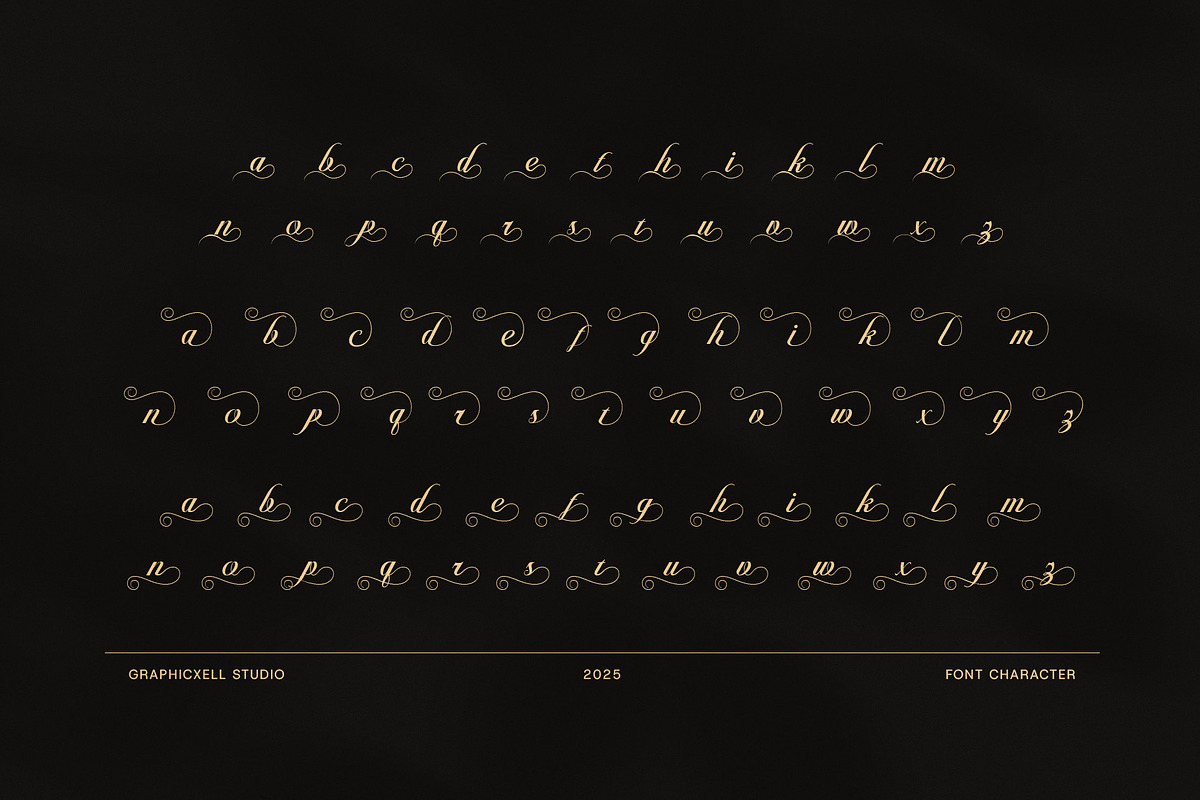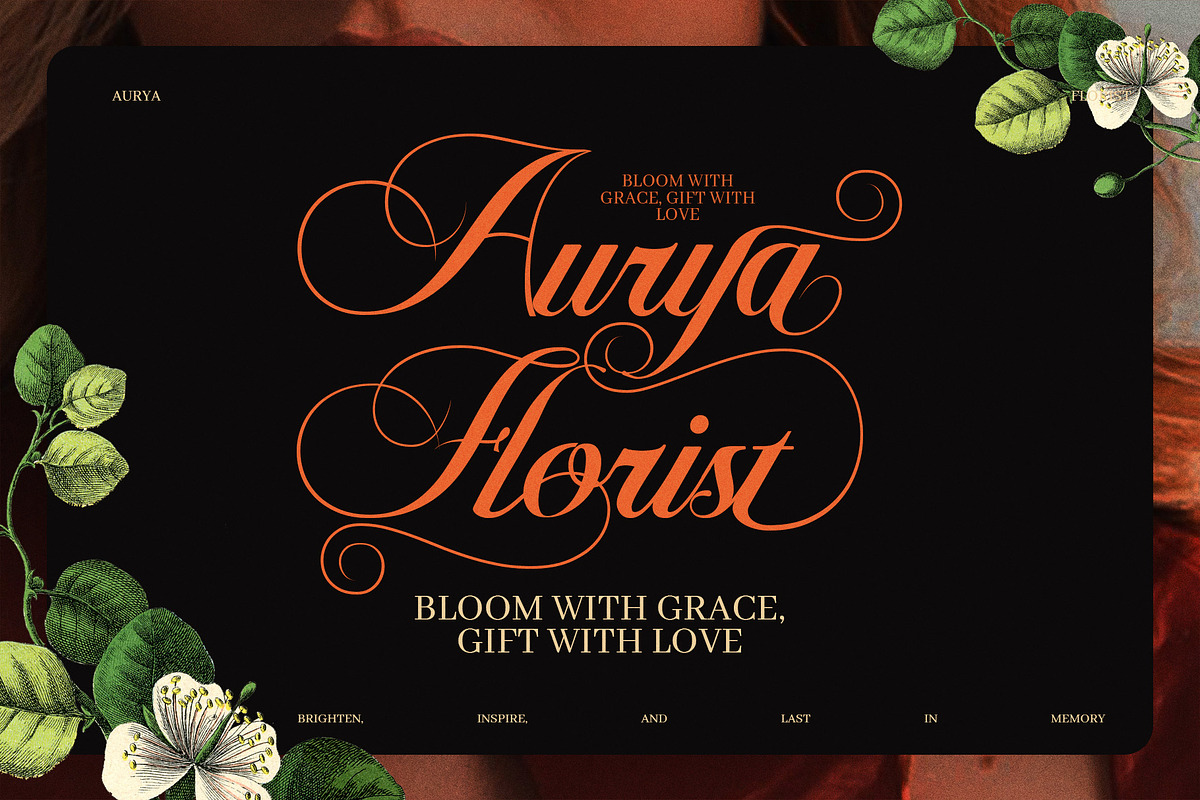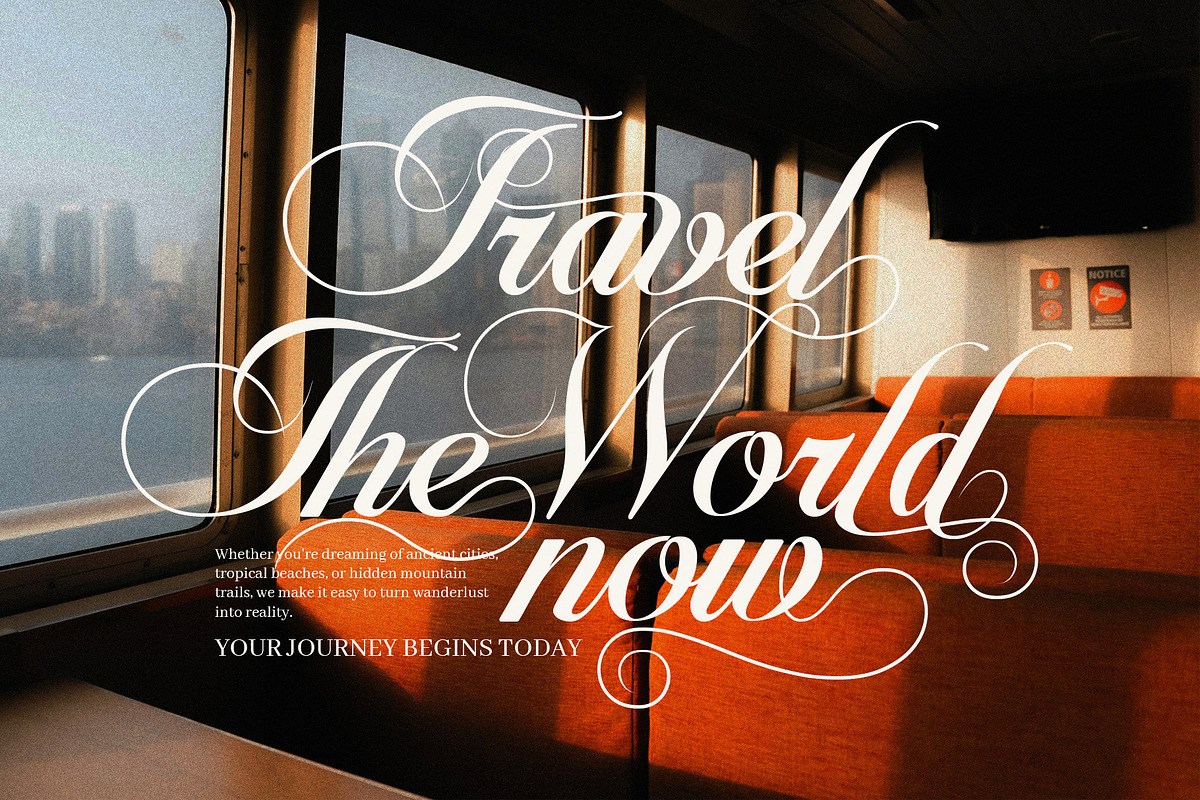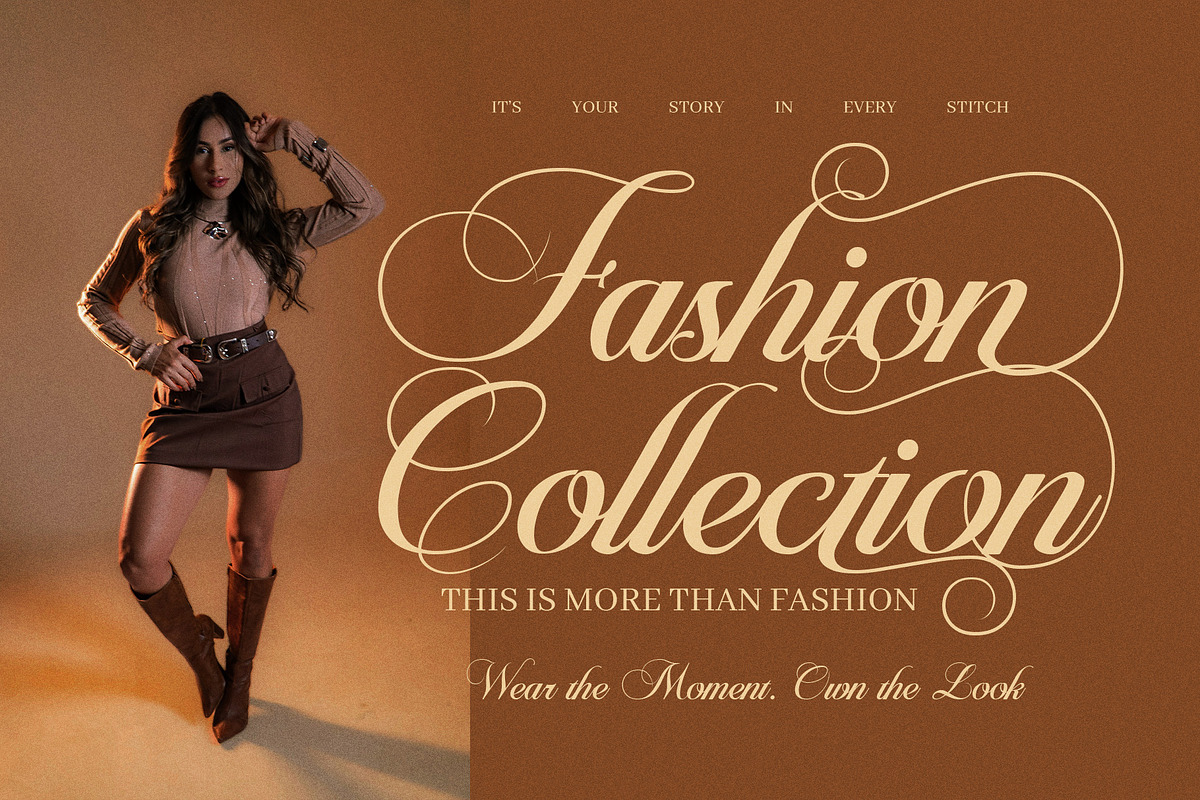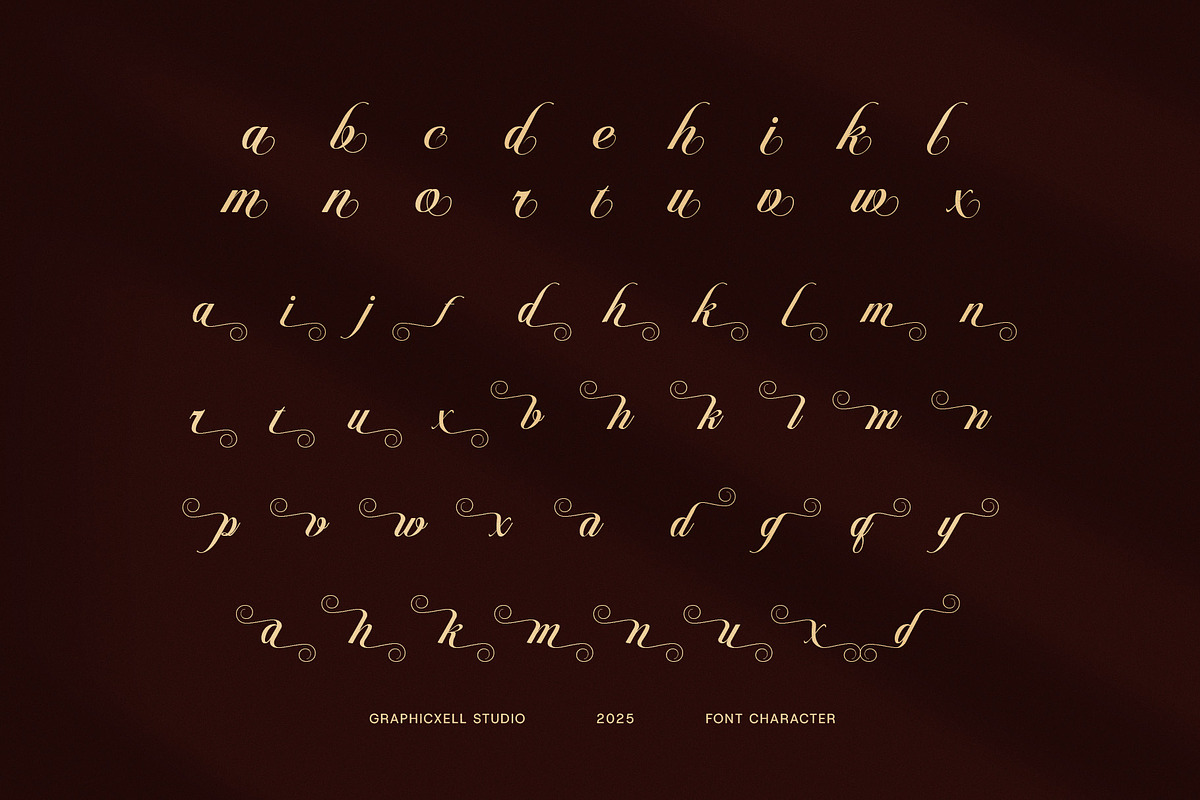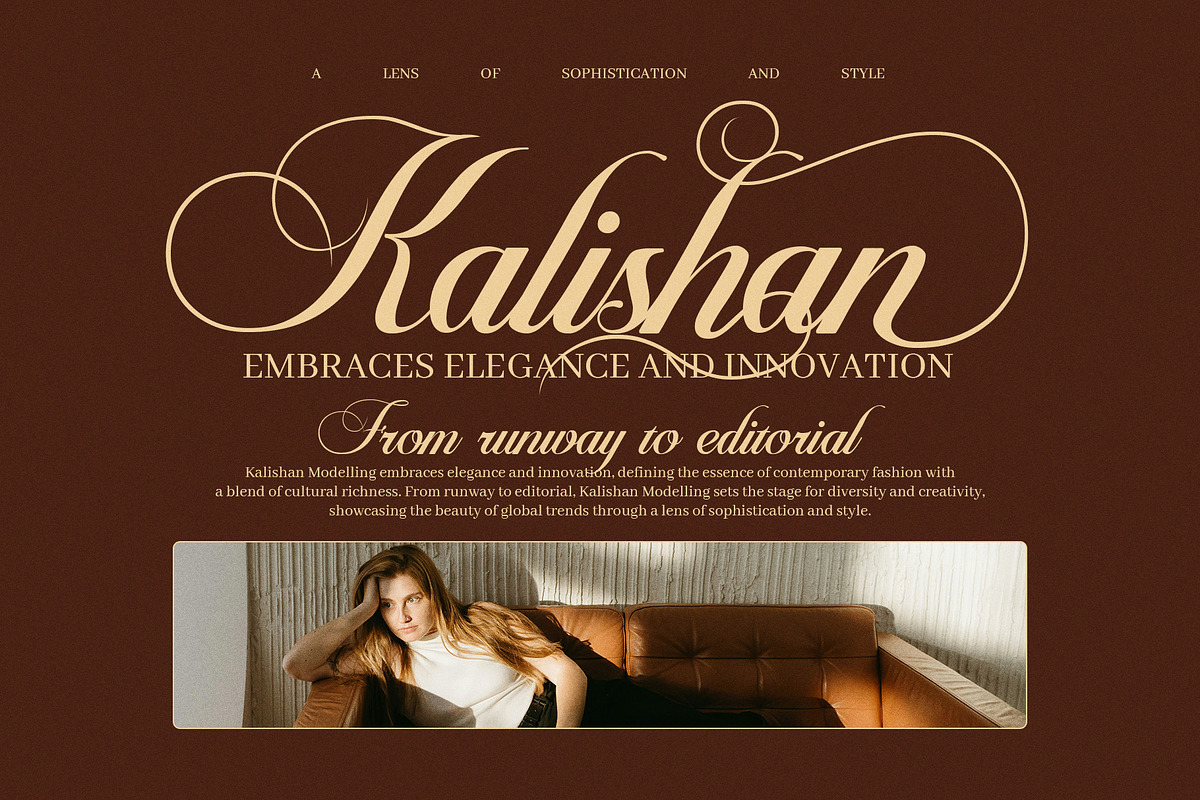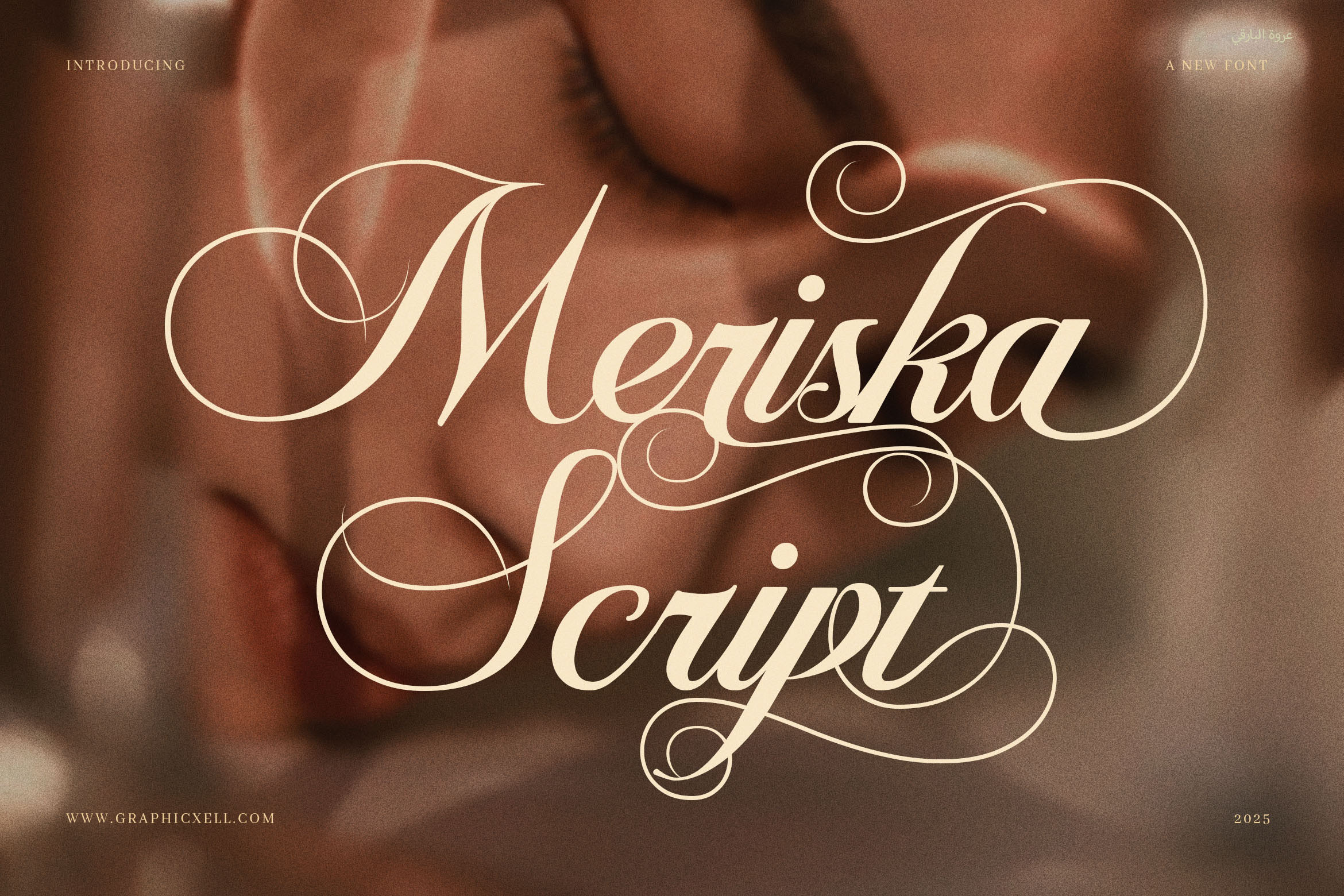
Meriska Elegant Wedding Script Font
Meriska – Elegant Wedding Script Font
Meriska is a refined and luxurious script font, crafted with elegance and sophistication in every curve. Its graceful, flowing strokes and artistic calligraphy style make it a perfect choice for designers seeking a timeless and romantic touch in their work.
Whether you're working on branding, invitations, or editorial design, Meriska adds a polished, upscale look to every project. With a range of stunning alternates and ligatures, it offers exceptional flexibility, allowing you to personalize your typography and create truly unique results.
Crafted with attention to detail, this font delivers high legibility and exquisite flourishes that bring words to life. From boutique logos to Instagram quotes, from business cards to posters — Dafensa Meriska adds a classy, artistic flair to all design needs.
Why Choose Meriska?
Elegant and modern calligraphy script
Includes stylish alternates & swashes
Suitable for logos, branding, weddings, social media & more